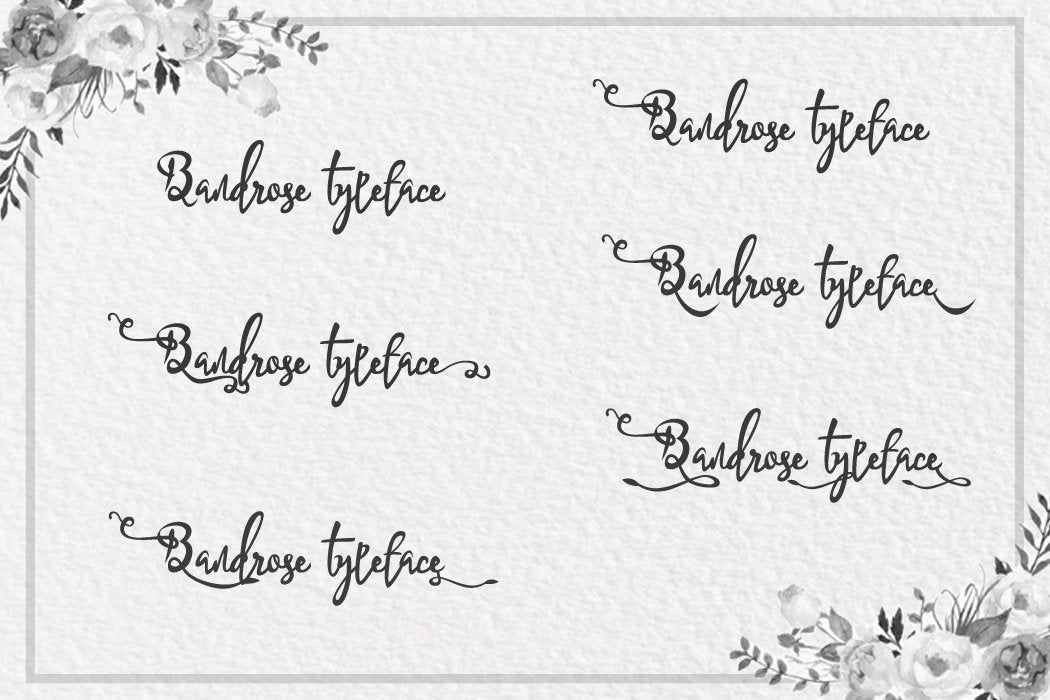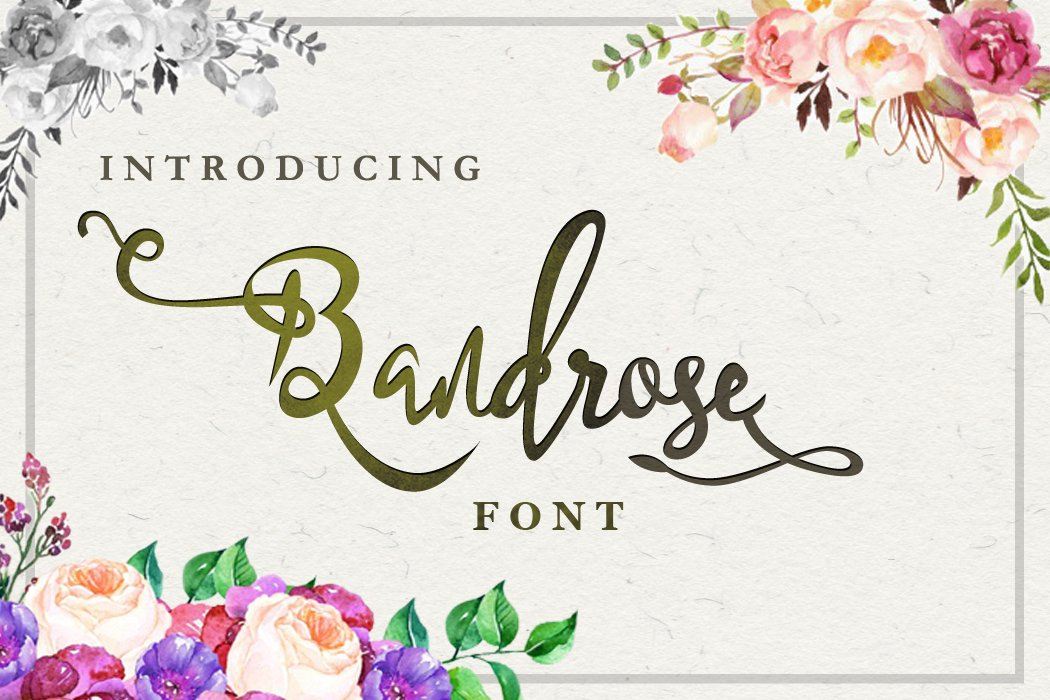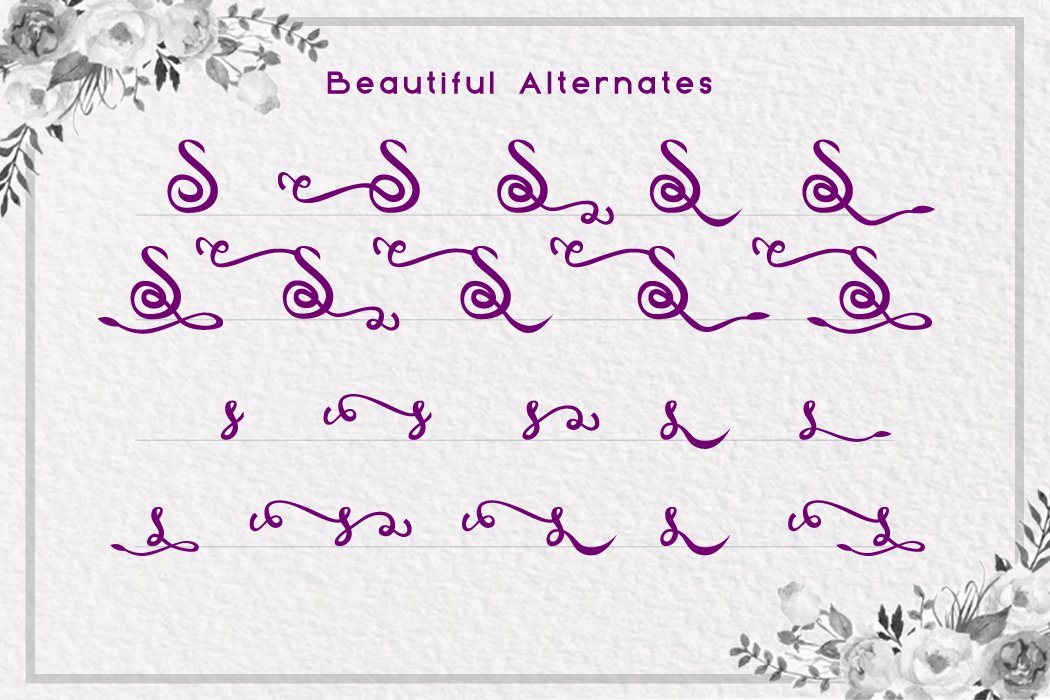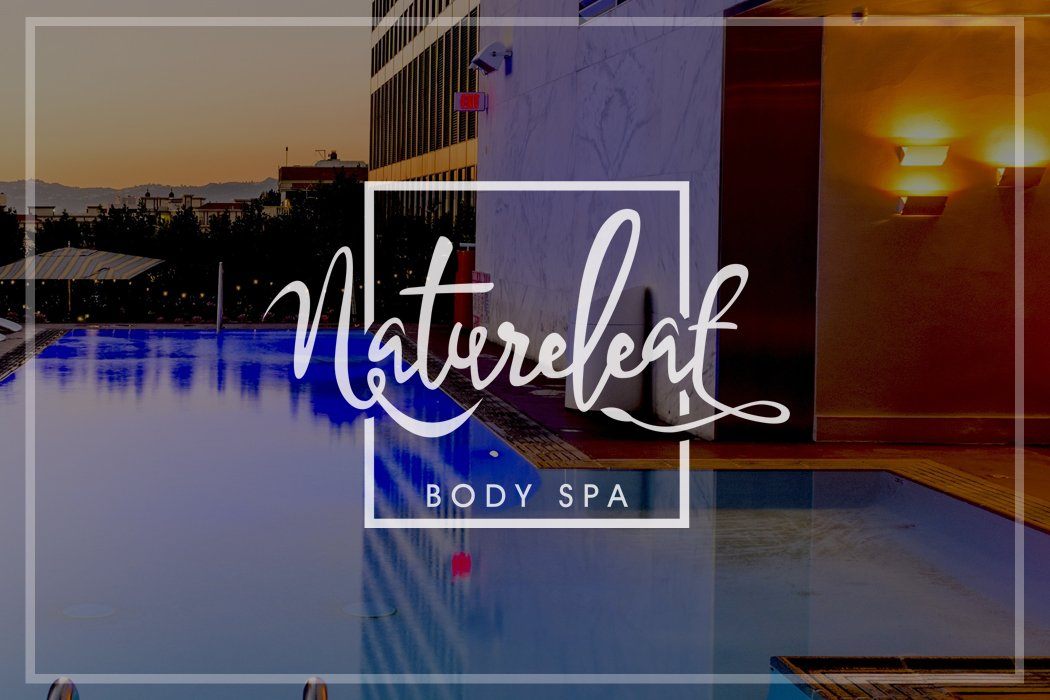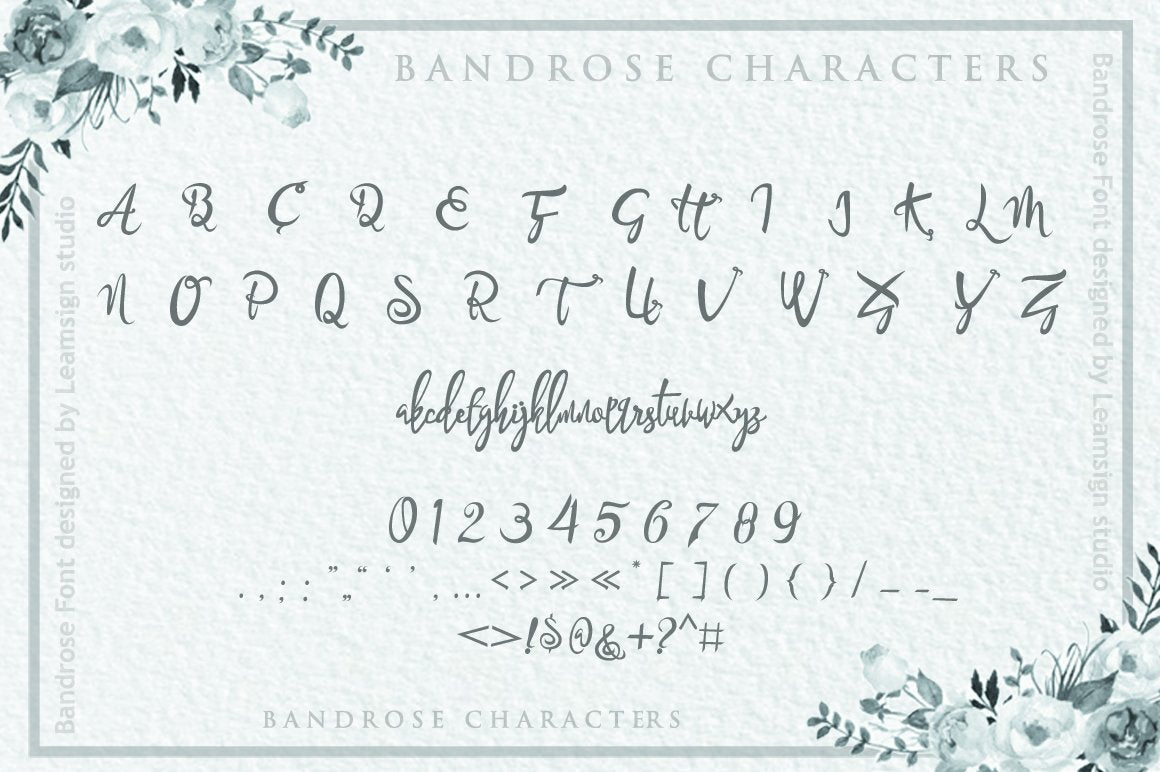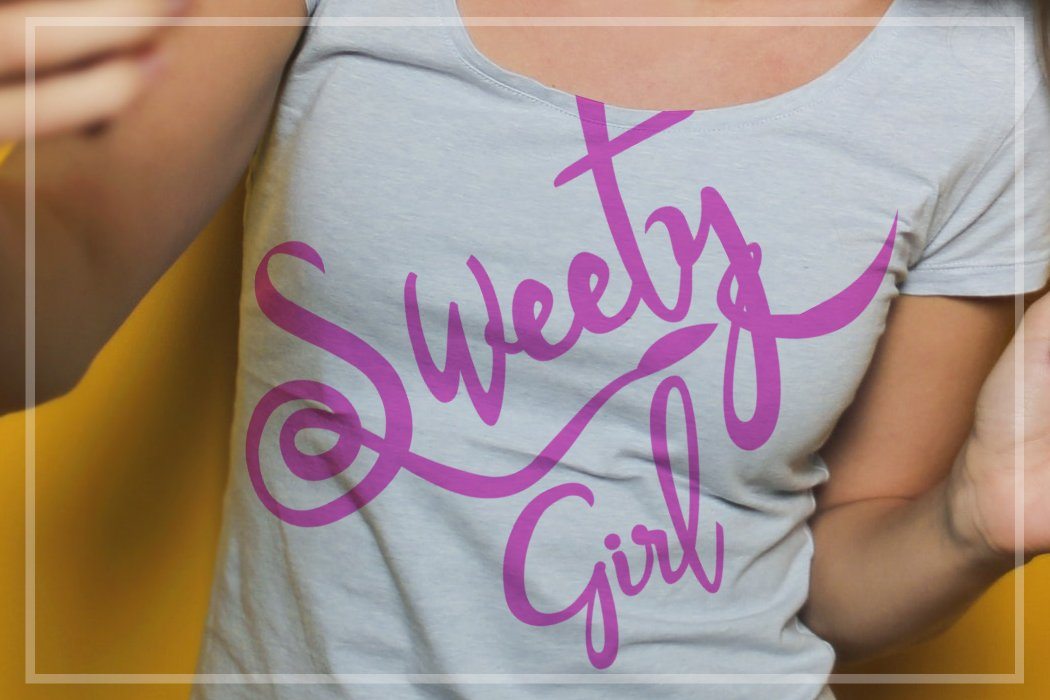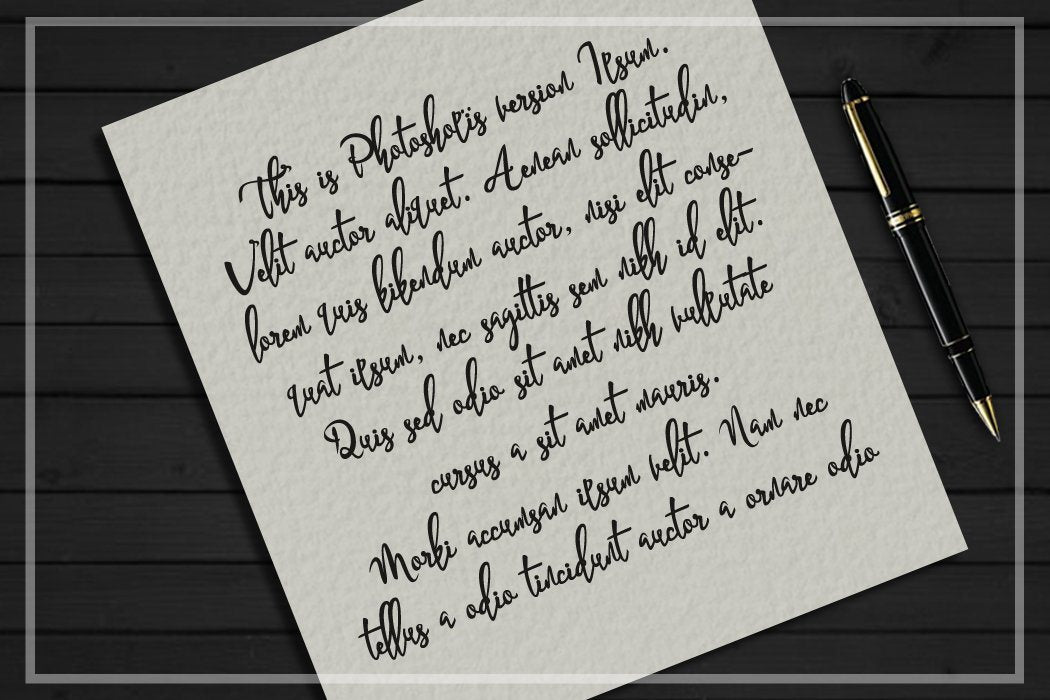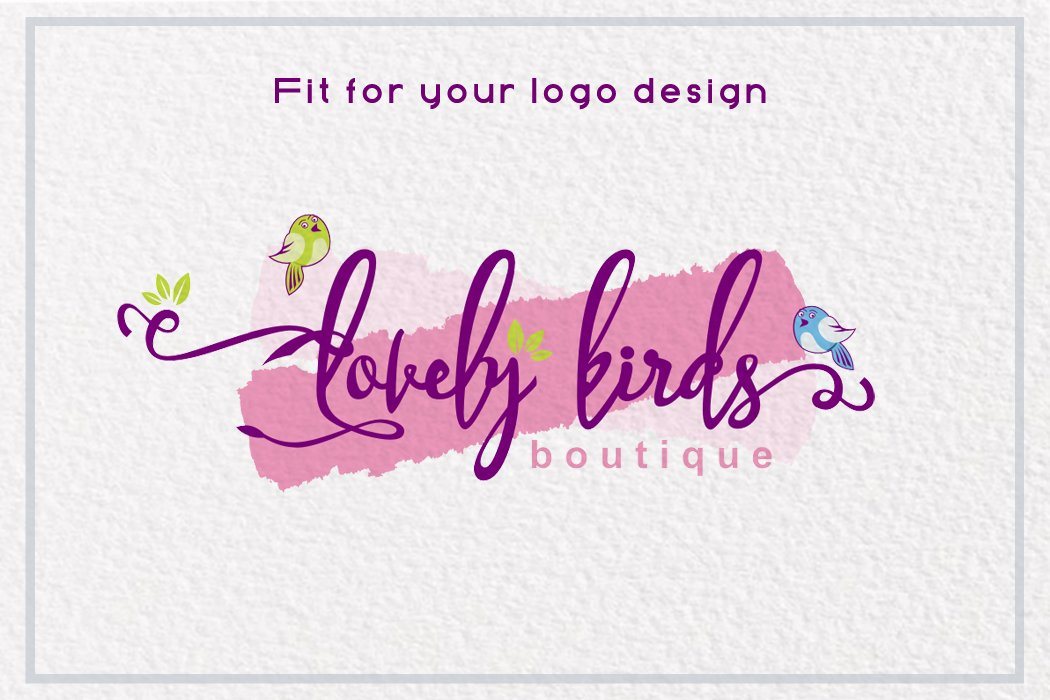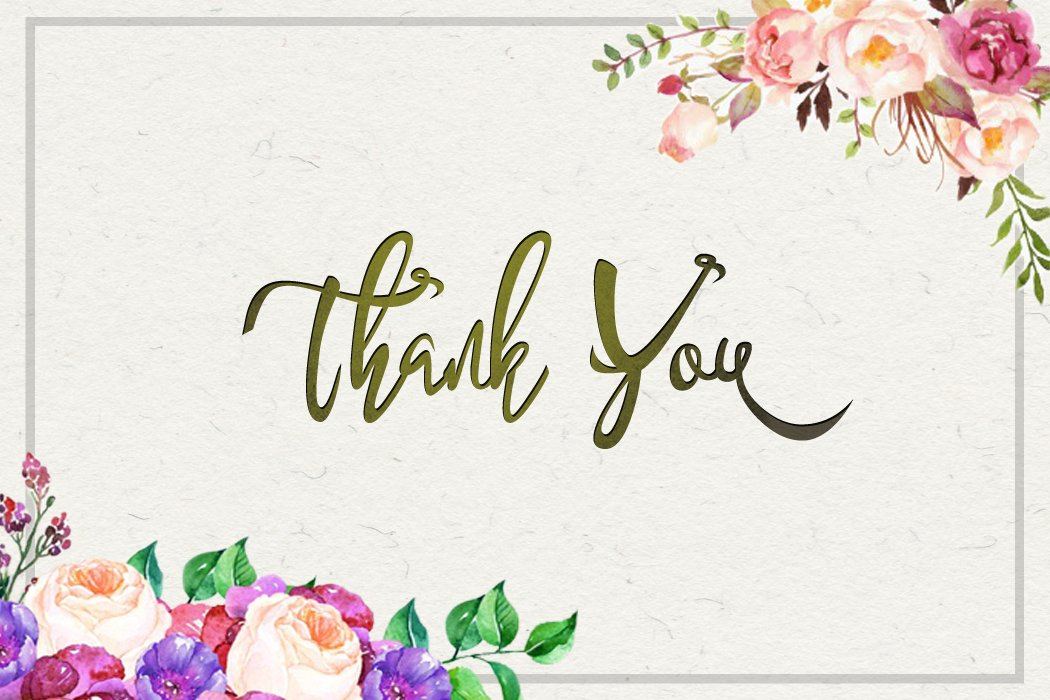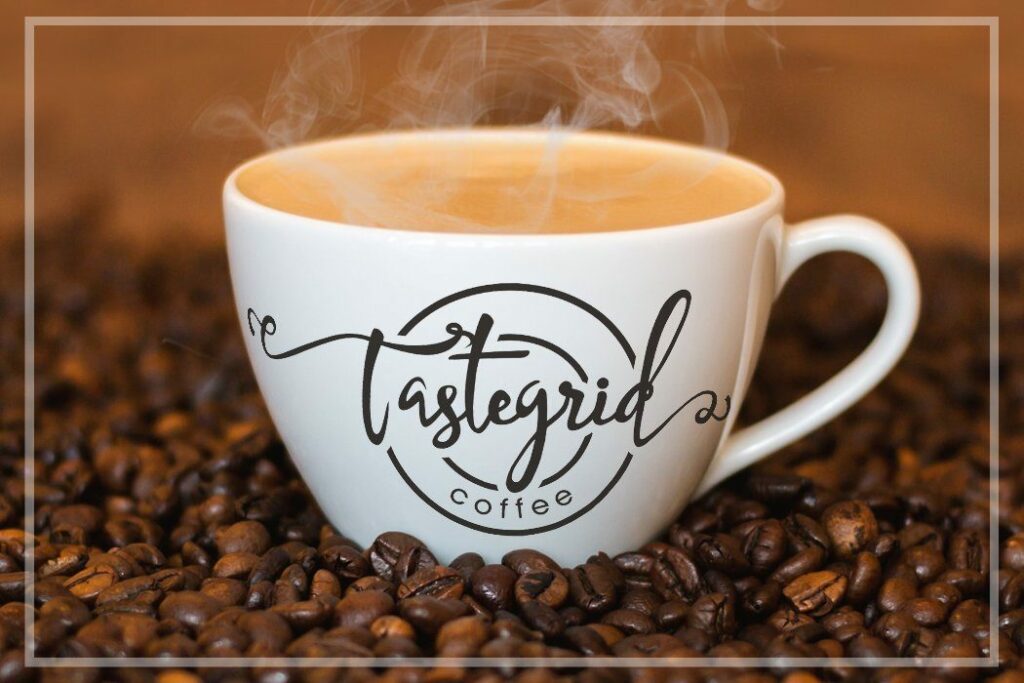
Bandrose Font
Bandrose Font Poster 1
About Bandrose Font
Bandrose Font Bandrose is a beautiful font that is provided for anyone who wants a beautiful and warm font design. It was inspired by the combination of handwriting and carving. Enriched with 9 beautiful alternates for each lowercase, uppercase and accents and with 1194 ghlyps in total, allow you to work without limits. Highly legible font well suited for any display or text use. Bandrose font perfect for branding, wedding invites, product packaging, logos, quotes, headers, cards and more!. Features : 1194 Glyphs Available in single OTF and TTF files (Alternates also available in TTF separately ) Uppercase A-Z Lowercase a-z Numbers 0-9 Accents Punctuation Alternates (9 alternate characters for each Uppercase, lowercase and accents) PUA Encoded Multilingual support Support for Windows, Mac and Linux OS HOW TO ACCESS ALTERNATE CHARACTERS Install OTF File (.otf) , You need a program that supports OpenType features like Adobe Illustrator CS, Adobe Indesign & CorelDraw X6- X7, Microsoft Word 2010 or later to enable OpenType features (ligatures and alternates). or Install OTF File (.otf) , for the programs that do not support OpenType features you can use Character map application (windows) or Babel map application (optional), choose the font and then copy-paste alternate characters from them to your project page (such as photoshop page etc). or Install TTF File (.ttf) , for the programs that do not support OpenType features you should install all TTF files , so you will have basic font and alternate fonts in your system.You can mix and match them to get the best typographic designs in almost all text processing program. If you have any questions regarding this product kindly leave your message through the contact form, comment field or contact us at  . Enjoy the font!! Thank you.. Don’t forget to visit our shop and check our products click here